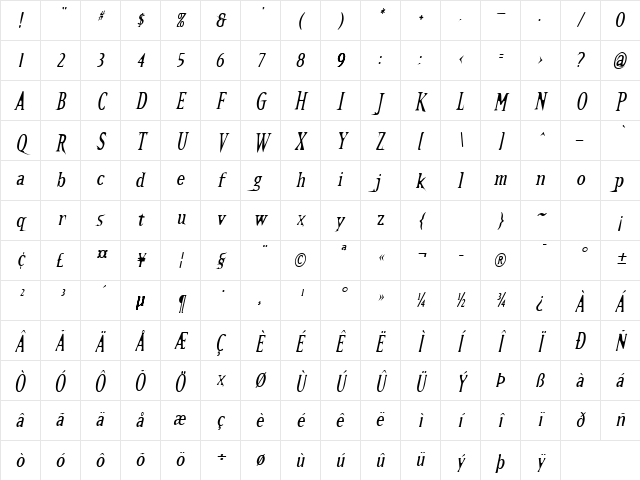
Kallamar Italic
Complete Kallamar Italic glyph index. Displaying only characters natively supported by Kallamar Italic font.
Design Context for Kallamar
Kallamar is a composed and adaptable typeface that performs quietly and consistently across a wide range of design contexts. The slanted form adds forward momentum and visual energy.
Pro Tip: Use Kallamar for emphasis, pull quotes, and subheadings where its slanted energy can add rhythm to the layout.